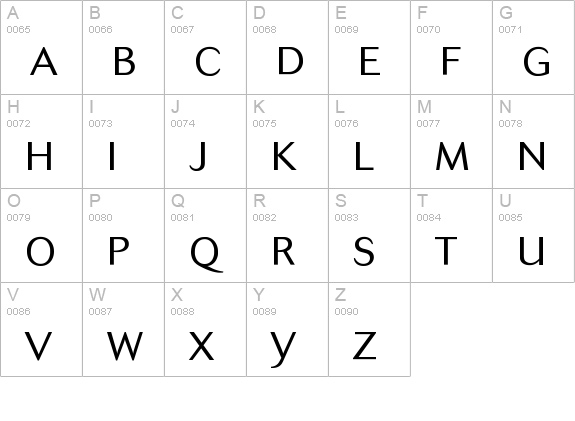
Cosmos (R) Light is a refined, elegant variant in the Cosmos typeface family \xE2\x80\x94 well suited to elegant body text, refined sub-headings, and luxury branding.
Cosmos (R) Light font is a stunning display typeface that exudes elegance and modernity. With its sleek lines and sophisticated curves, this font is perfect for adding a touch of class to any project. The light weight of the font gives it a delicate and refined appearance, making it ideal for use in titles, headers, and other prominent text elements. What sets Cosmos (R) Light font apart is that it is available for free download at FontsMarket.com. This means that you can easily access and use this stylish font in your designs without any cost. Whether you're working on a branding project, a website design, or any other creative endeavor, Cosmos (R) Light font is sure to elevate your work with its timeless appeal. Download it today and add a touch of sophistication to your design projects!